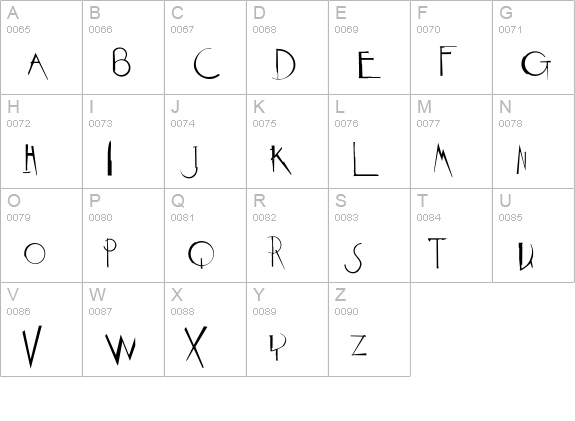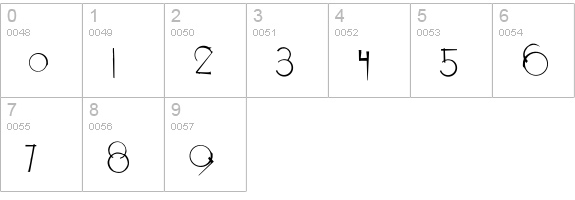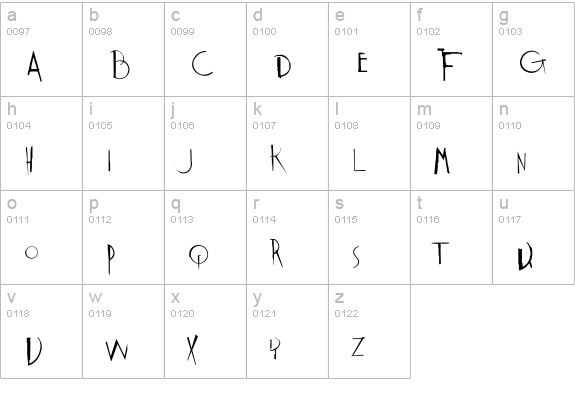
Epicure Font Details
Epicure font is a stunning and elegant typeface that exudes sophistication and charm. With its graceful lines and classic design, this font is perfect for adding a touch of timeless beauty to any project. Whether you're creating invitations, logos, or branding materials, Epicure font will elevate your designs to the next level. The best part? Epicure font is completely free to download at FontsMarket.com. This means you can access this gorgeous typeface without any cost, making it a valuable addition to your font collection. Don't miss out on the opportunity to enhance your designs with the luxurious style of Epicure font - download it today and take your projects to new heights of elegance.